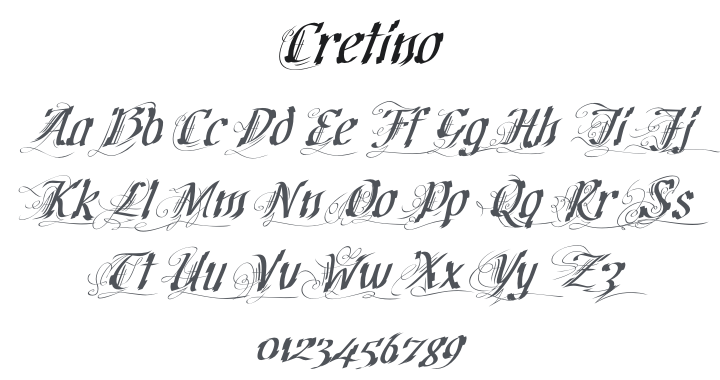
Cretino Font
About Cretino
Cretino is a glitzy swash script typeface dripping with opulence — flowing italic letterforms adorned with elaborate decorative flourishes that feel simultaneously medieval and Hollywood glamour. Born from Ray Larabie testing a new drawing tablet in 2000, it has a charmingly over-the-top personality. Perfect for wedding invitations, luxury packaging, theatrical posters, cocktail menus, and any design that revels in lavish excess.